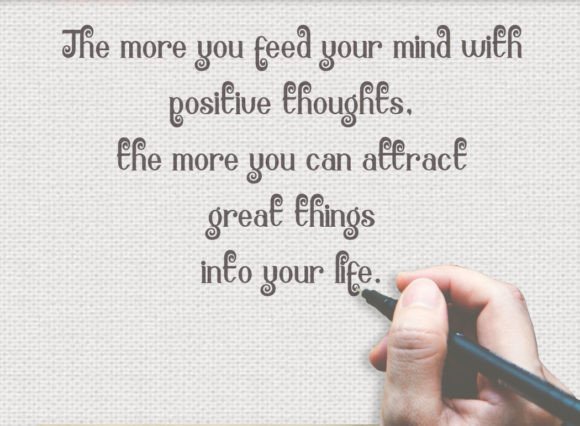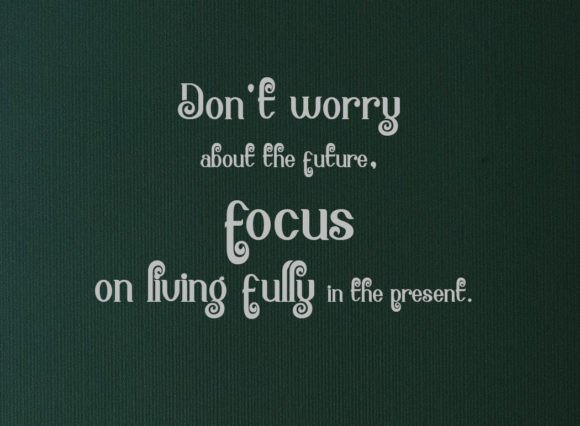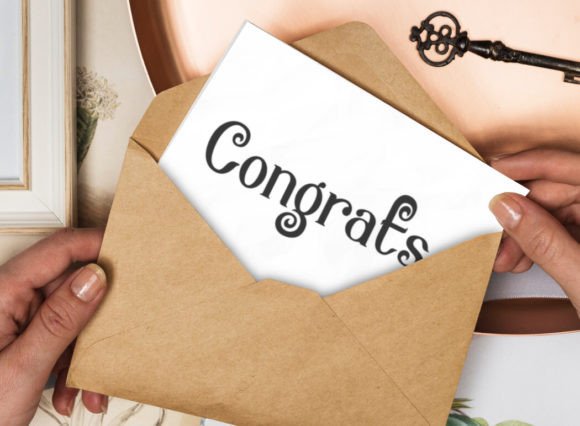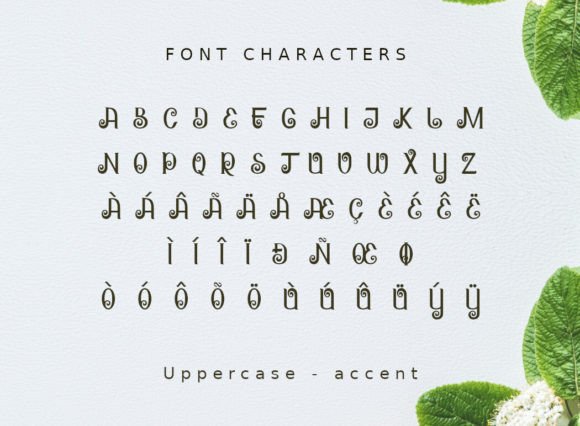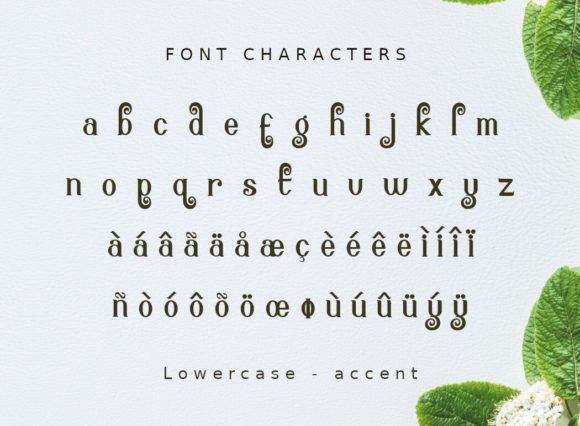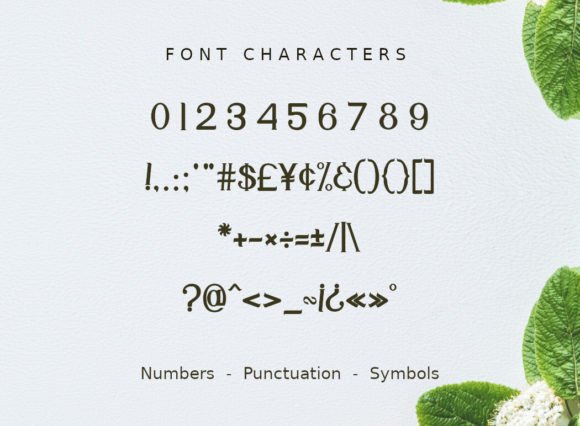
The Timeless Elegance of Bangolla Font: A Designer’s Delight
I’ll never forget the time I was working on a wedding invitation project, and my client asked for a font that exuded classic sophistication. I scoured the internet, tried out countless fonts, but nothing seemed quite right. That was until I stumbled upon Bangolla Font. Its unique shape and characters immediately caught my eye, and I knew I had found the perfect fit. In this article, I’ll share my experience with Bangolla Font, its features, and how to make the most of it in your designs.
A Personal Review of Bangolla Font
- ✨ Classic serif elegance: Bangolla Font boasts a beautiful, timeless design that adds a touch of sophistication to any project.
- ✅ Unique character set: The font’s distinctive characters make it perfect for creating unique and eye-catching designs.
- 💕 Versatility: Bangolla Font is suitable for a wide range of projects, from wedding invitations and greeting cards to quotes and headers.
While Bangolla Font is an excellent choice for many projects, there are a few things to keep in mind:
- 🤔 Limited use in body text: Due to its classic serif design, Bangolla Font may not be the best choice for lengthy body text. It’s better suited for headings, titles, and short paragraphs.
The Story Behind Bangolla Font
Bangolla Font was designed with the goal of creating a timeless, classic serif font that would evoke a sense of elegance and sophistication. The font’s creator drew inspiration from traditional serif fonts, while adding unique touches to make it stand out. The result is a font that is both nostalgic and modern, perfect for designers looking to add a touch of classic charm to their projects.
| Font Name | Bangolla Font |
| Author | leamsign |
| What type of projects is Bangolla Font best suited for? | Bangolla Font is perfect for wedding invitations, greeting cards, quotes, headers, and any design that needs a classic or vintage touch. |
| Can I use Bangolla Font for body text? | While Bangolla Font can be used for body text, it’s better suited for headings, titles, and short paragraphs due to its classic serif design. |